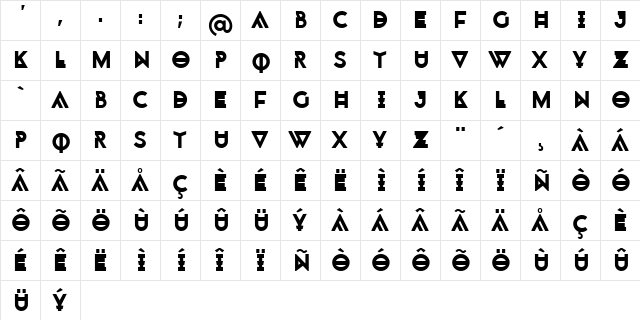
Monohypster Regular
| Foundry | Monocromo s.n.c. |
| Designer | Andrea Cerboneschi for Monocromo |
Design Context for Monohypster Typeface
Monohypster uses fixed-width spacing throughout, giving it the structured, systematic character associated with coding environments and technical documentation.
Pro Tip: Pair Monohypster with a proportional sans for UI contexts where code-style labels and regular body copy need to coexist.